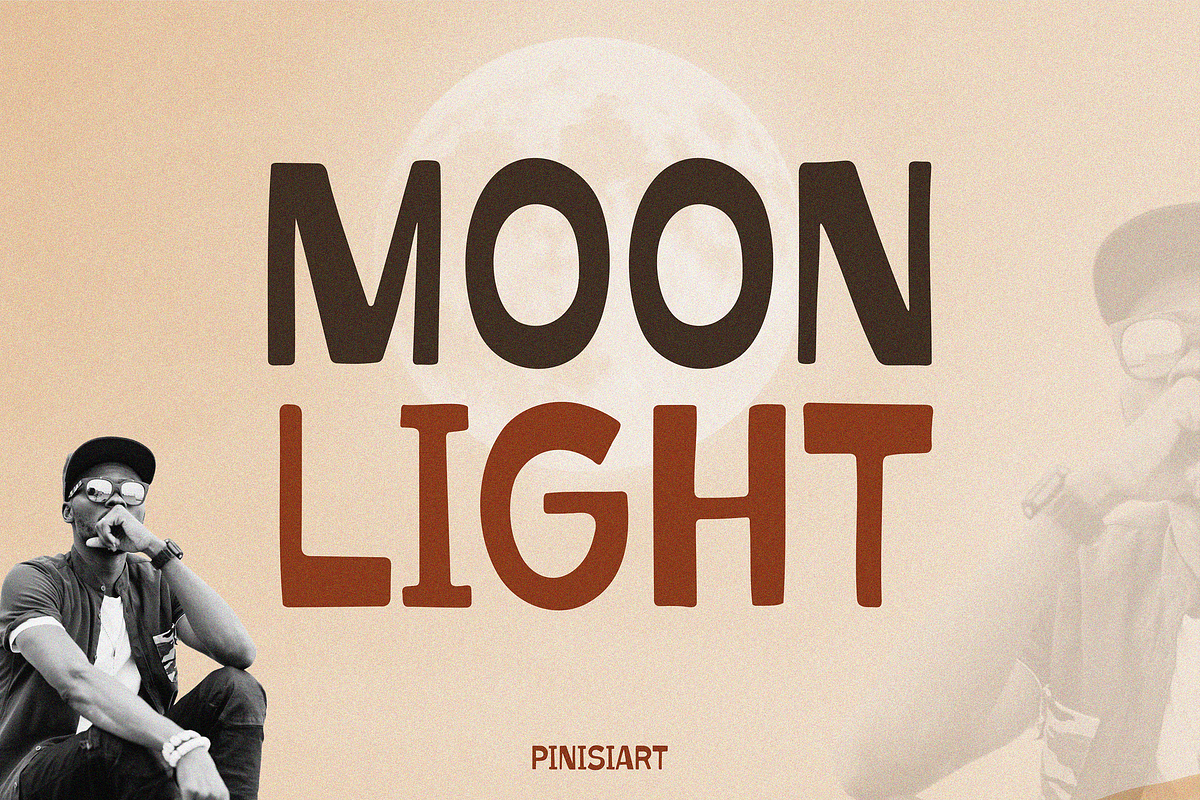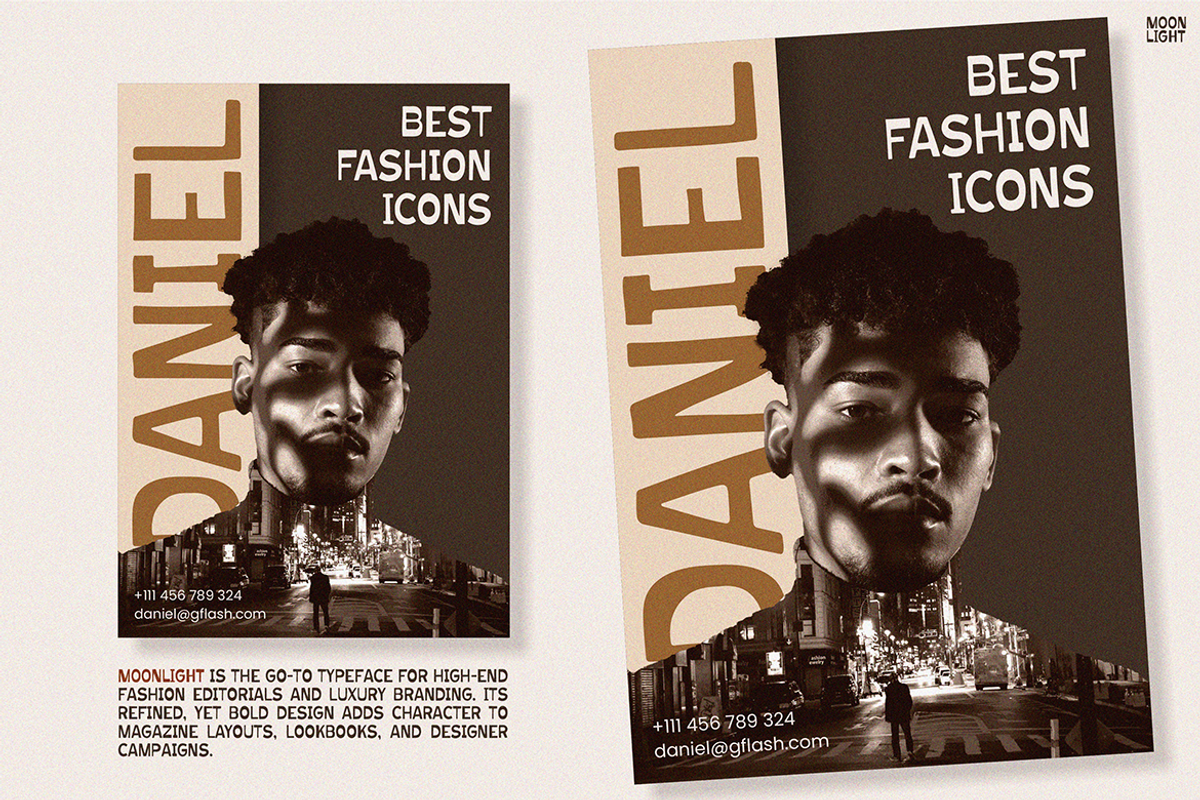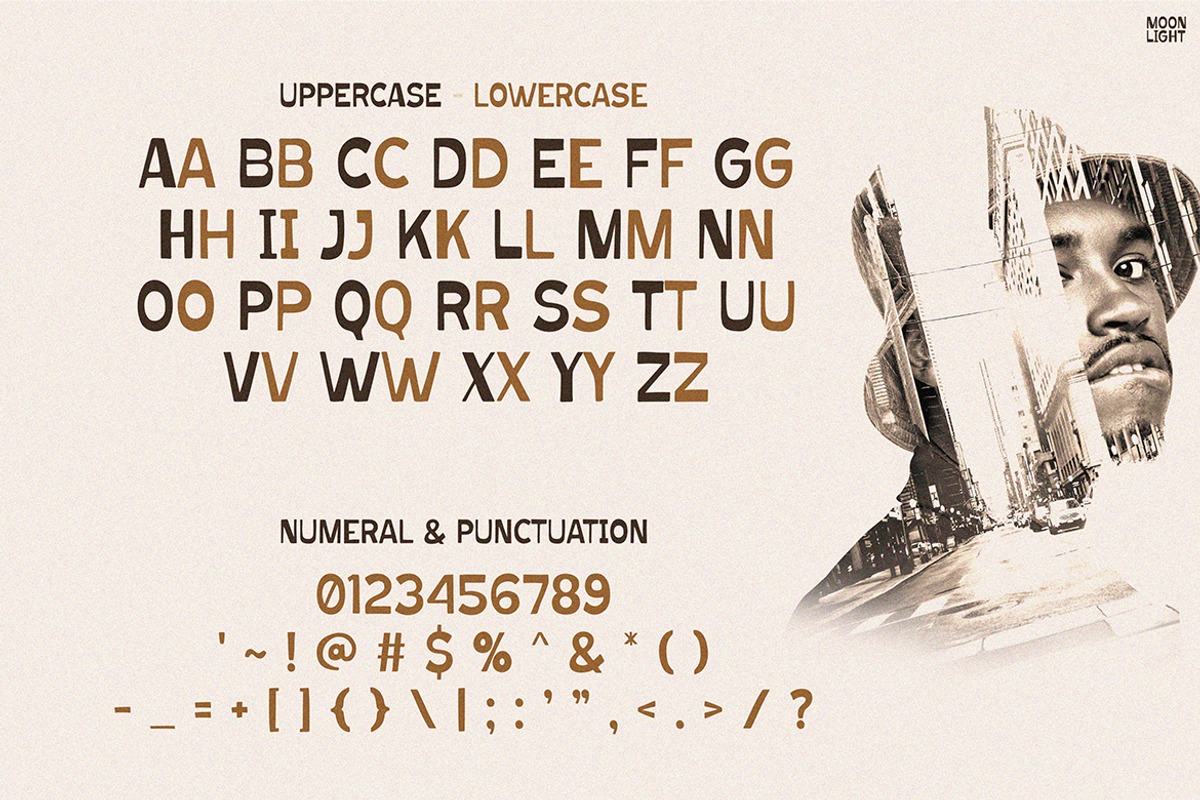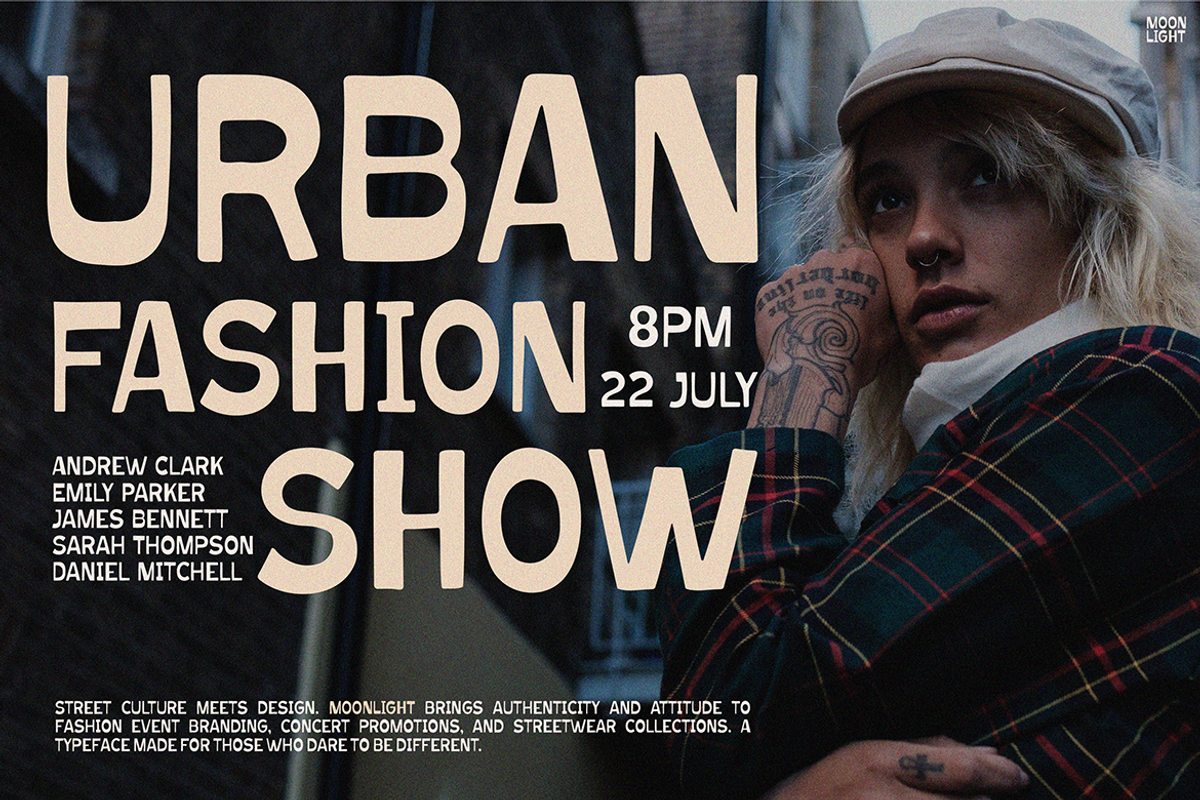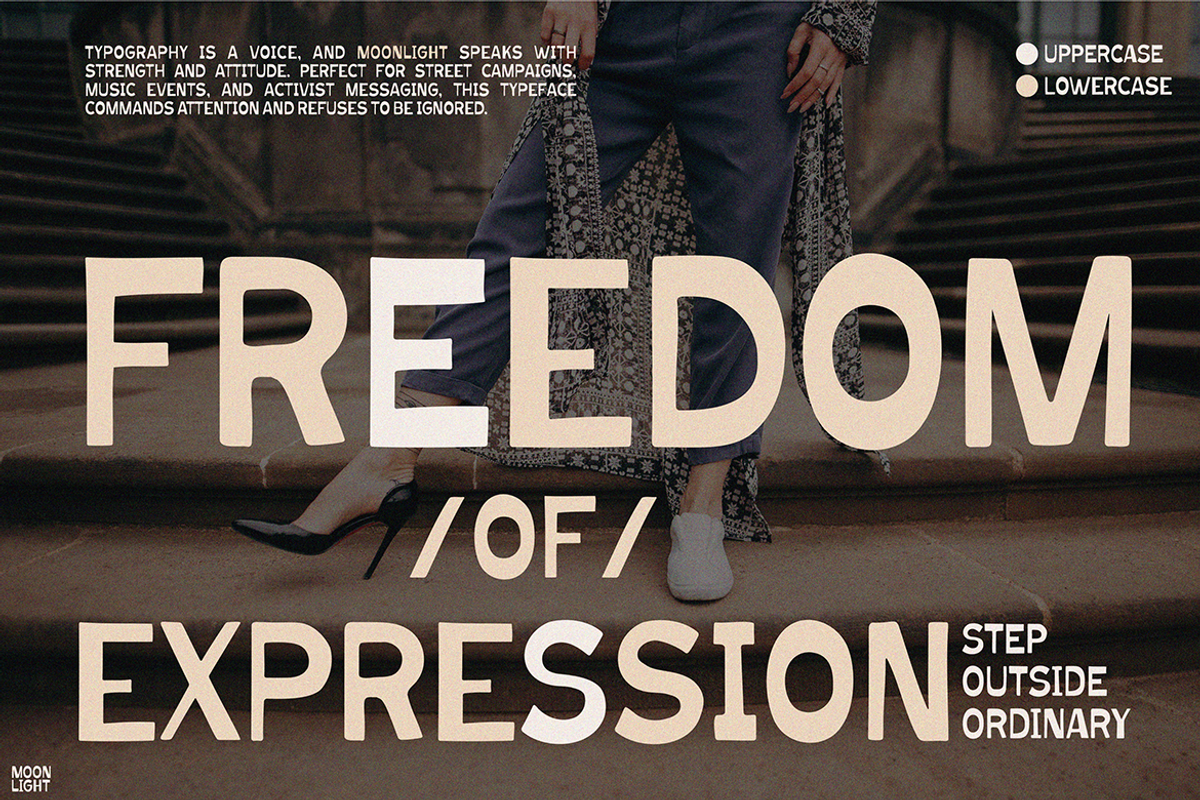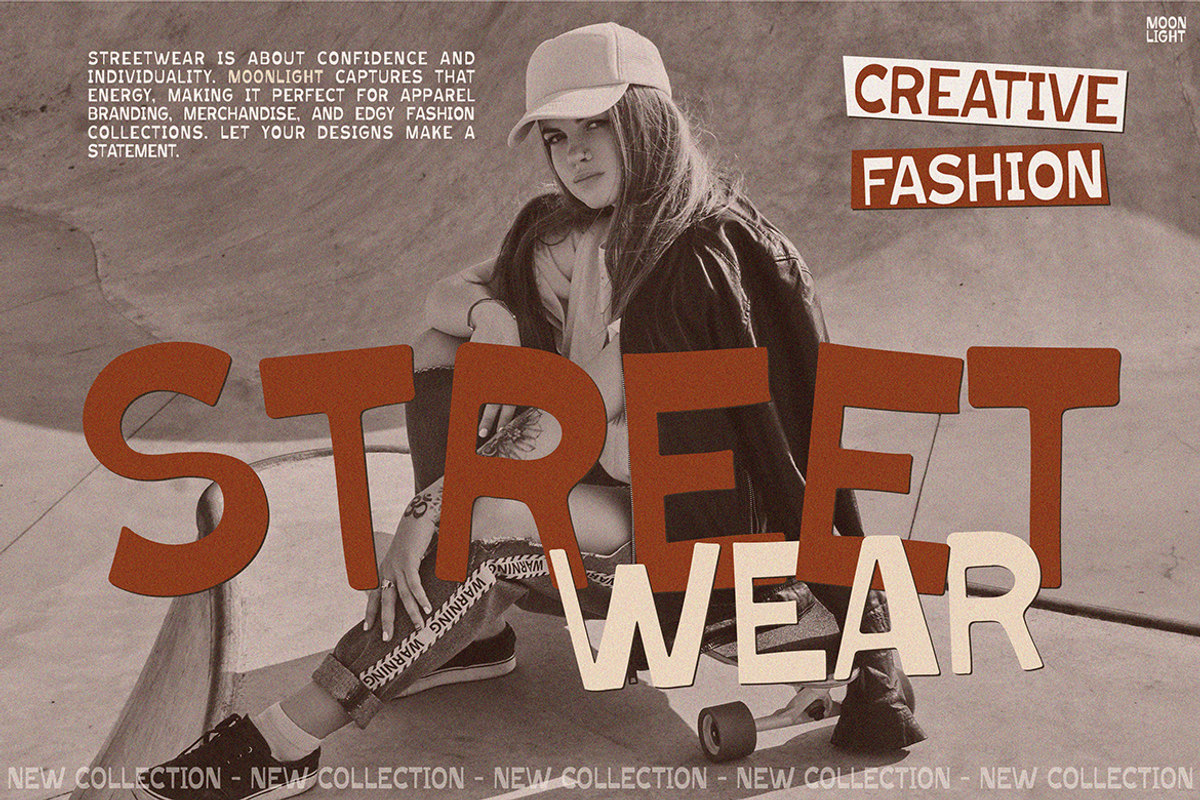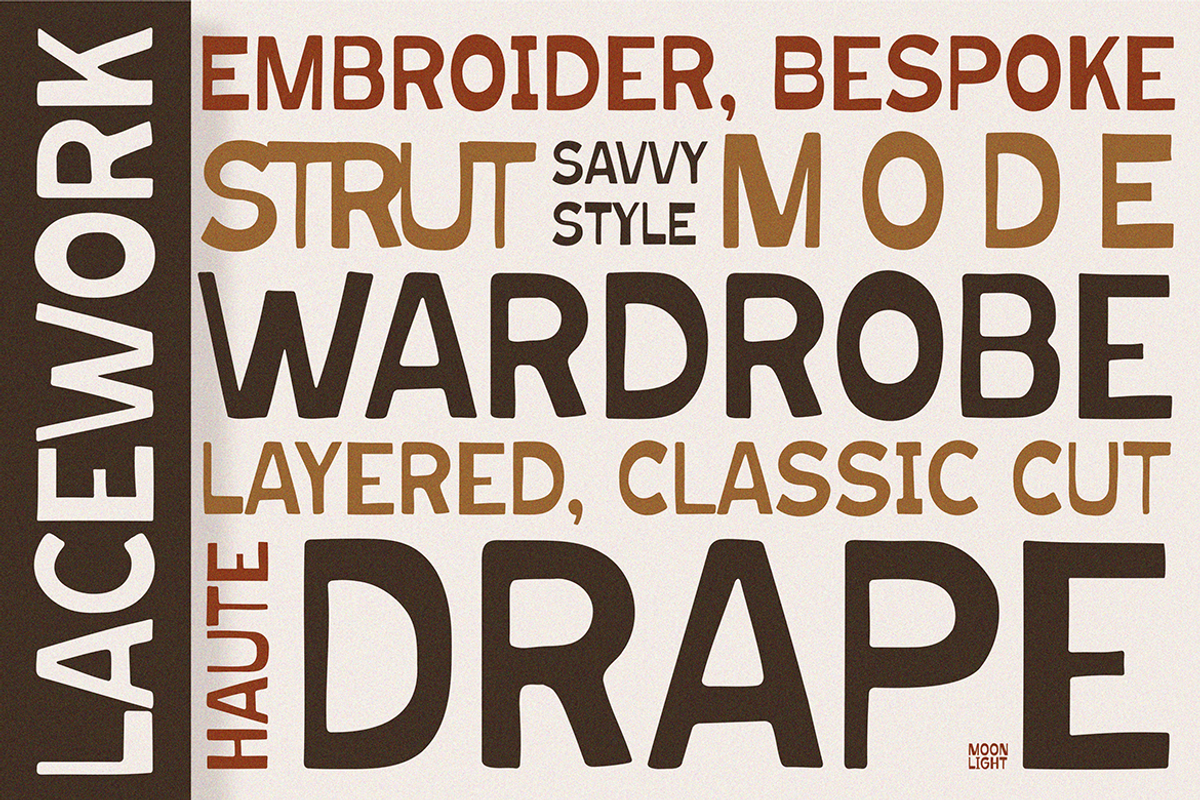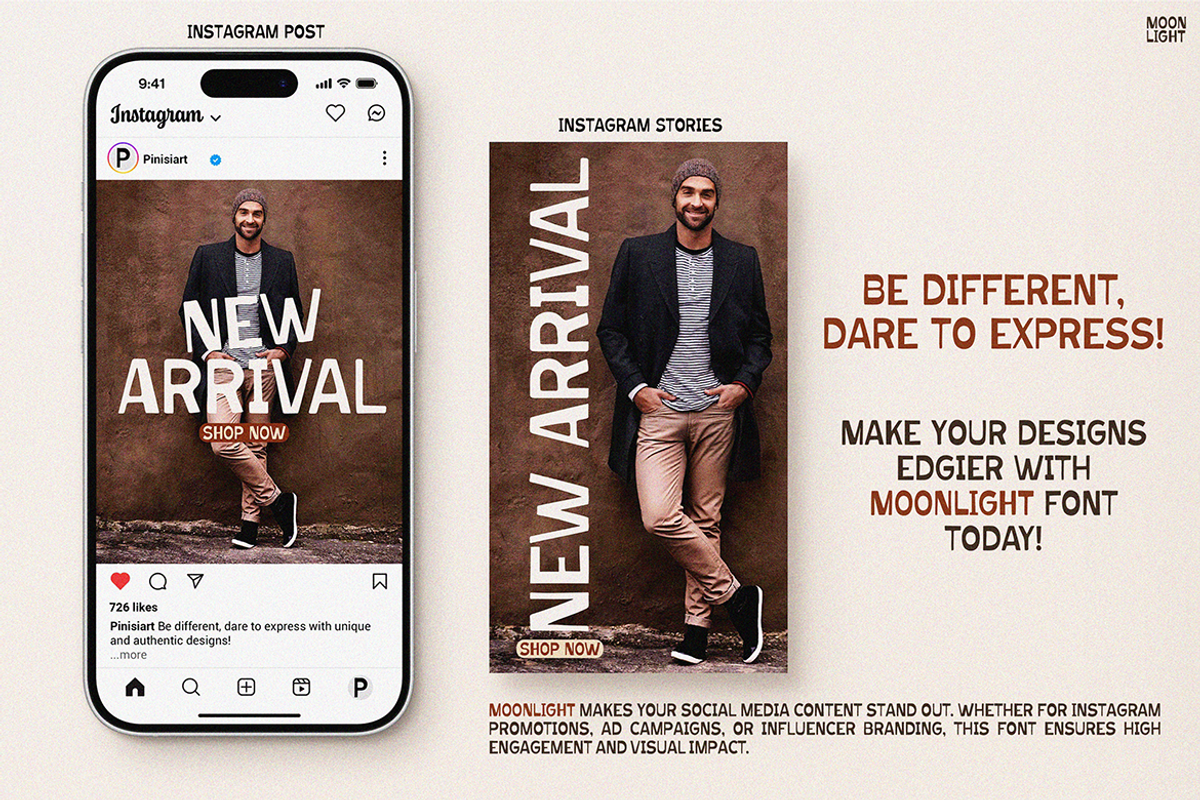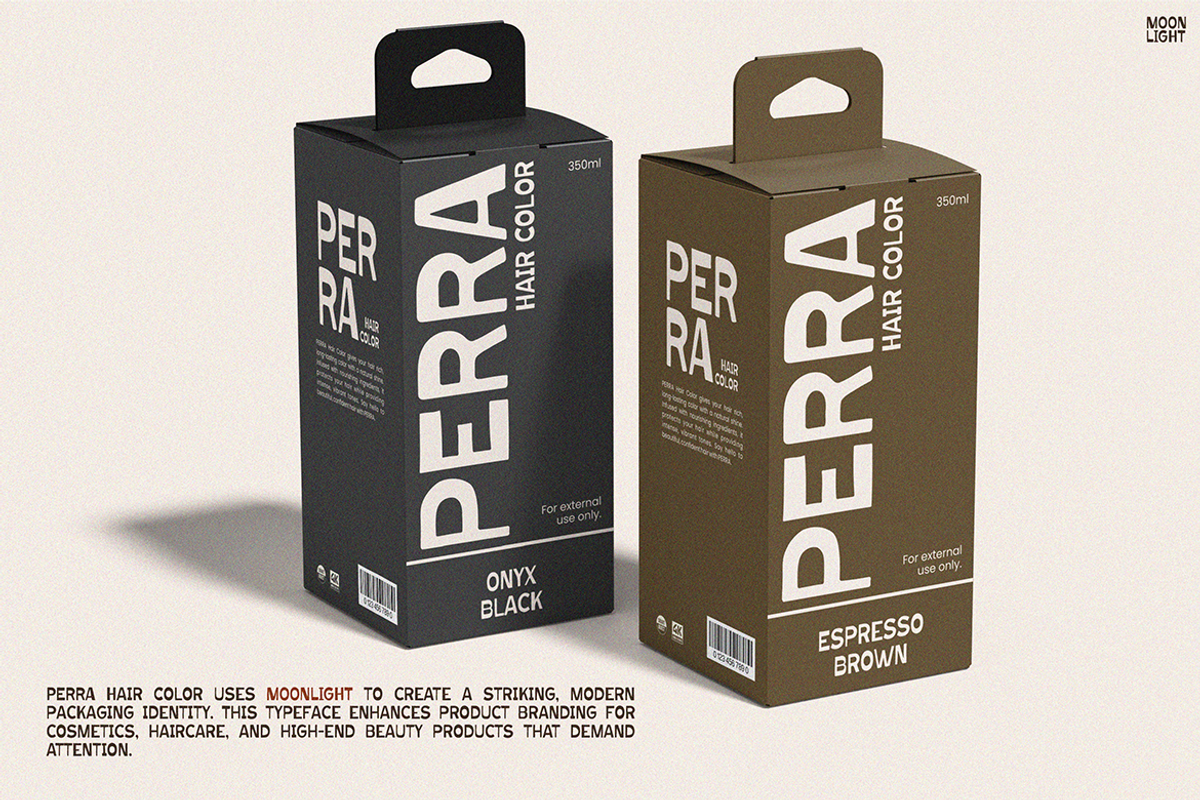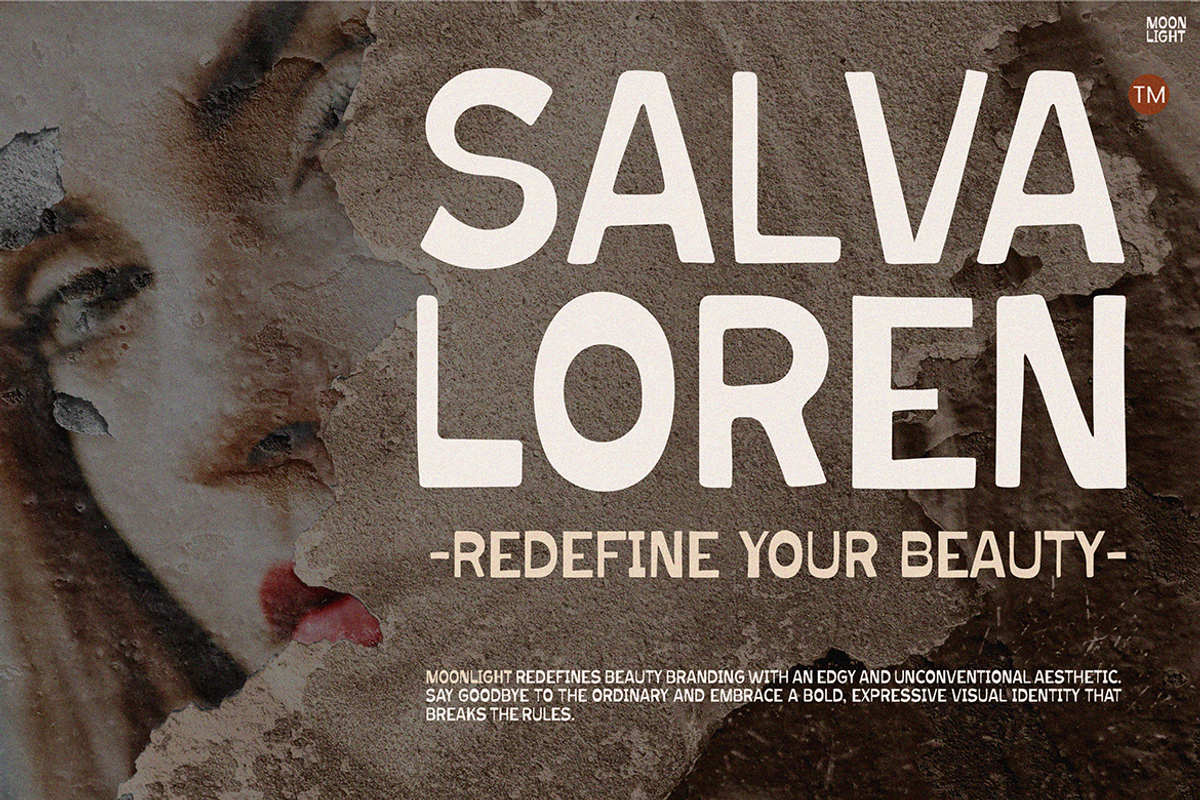
MOONLIGHT
Instagram Font MOONLIGHT is a typeface that perfectly captures the essence of urban culture and high-end fashion aesthetics. With its handcrafted, slightly irregular letterforms, this font exudes an organic yet sophisticated appeal, making it perfect for contemporary branding. Moreover, its bold strokes and natural imperfections add character, giving it an authentic and unique charm.
Designed with versatility in mind, MOONLIGHT strikes the perfect balance between modern elegance and street-style grit. In addition, its carefully curated typography blends artistic expression with readability, making it ideal for event promotions, fashion editorials, and branding that aims to stand out. Whether you’re crafting posters, digital campaigns, or product packaging, this font ensures a dynamic and impactful visual presence. Therefore, it is a great choice for those who want to make a lasting impression.